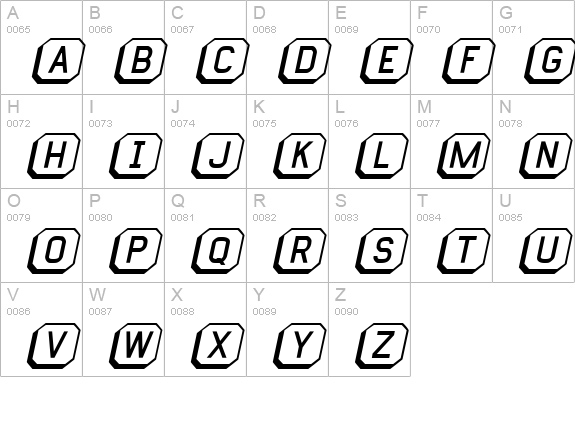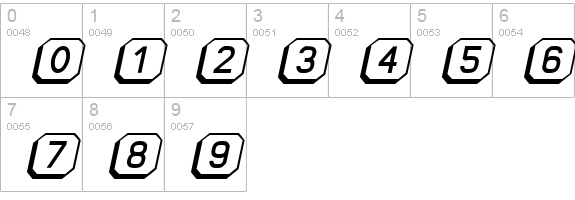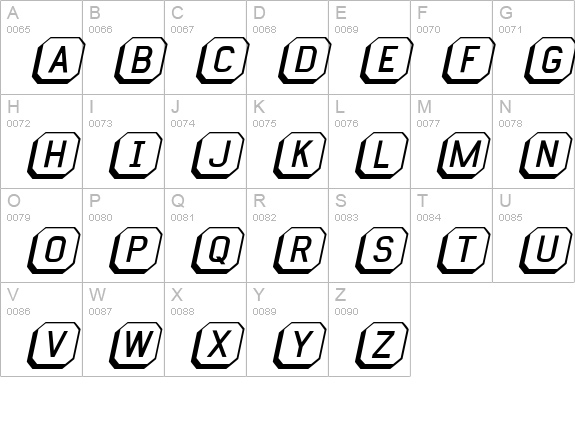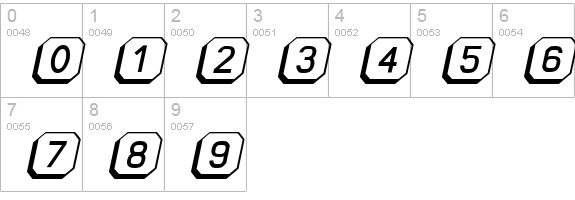
Keyboard Italic Font Details
Keyboard Italic is a distinctive, italic variant in the Keyboard typeface family \xE2\x80\x94 well suited to design and typography projects.
Introducing Keyboard Italic, a sleek and sophisticated font that adds an artistic touch to any project. With its unique slanted design, this font exudes elegance and modernity, making it perfect for a wide range of applications. Keyboard Italic is not just visually appealing, but also incredibly versatile. Whether you're designing a logo, creating eye-catching headlines, or crafting stylish invitations, this font will elevate your design to new heights. Its clean and crisp lines combined with a subtle italicized angle give your text a distinct and refined look. But what truly sets Keyboard Italic apart is its accessibility. This font is not only visually captivating, but it is also free to download at FontsMarket.com. With just a few clicks, you can have this amazing font at your disposal, ready to enhance your creative projects without any cost. Keyboard Italic's versatility extends to various design styles, from modern and minimalistic to elegant and luxurious. Its legibility and readability are unmatched, ensuring that your message is conveyed effectively and effortlessly. So why settle for ordinary fonts when you can have Keyboard Italic? Download it for free at FontsMarket.com and unleash your creativity today. Whether you're a professional designer or a hobbyist, this font is a must-have in your collection. Elevate your designs, captivate your audience, and make a lasting impression with Keyboard Italic.